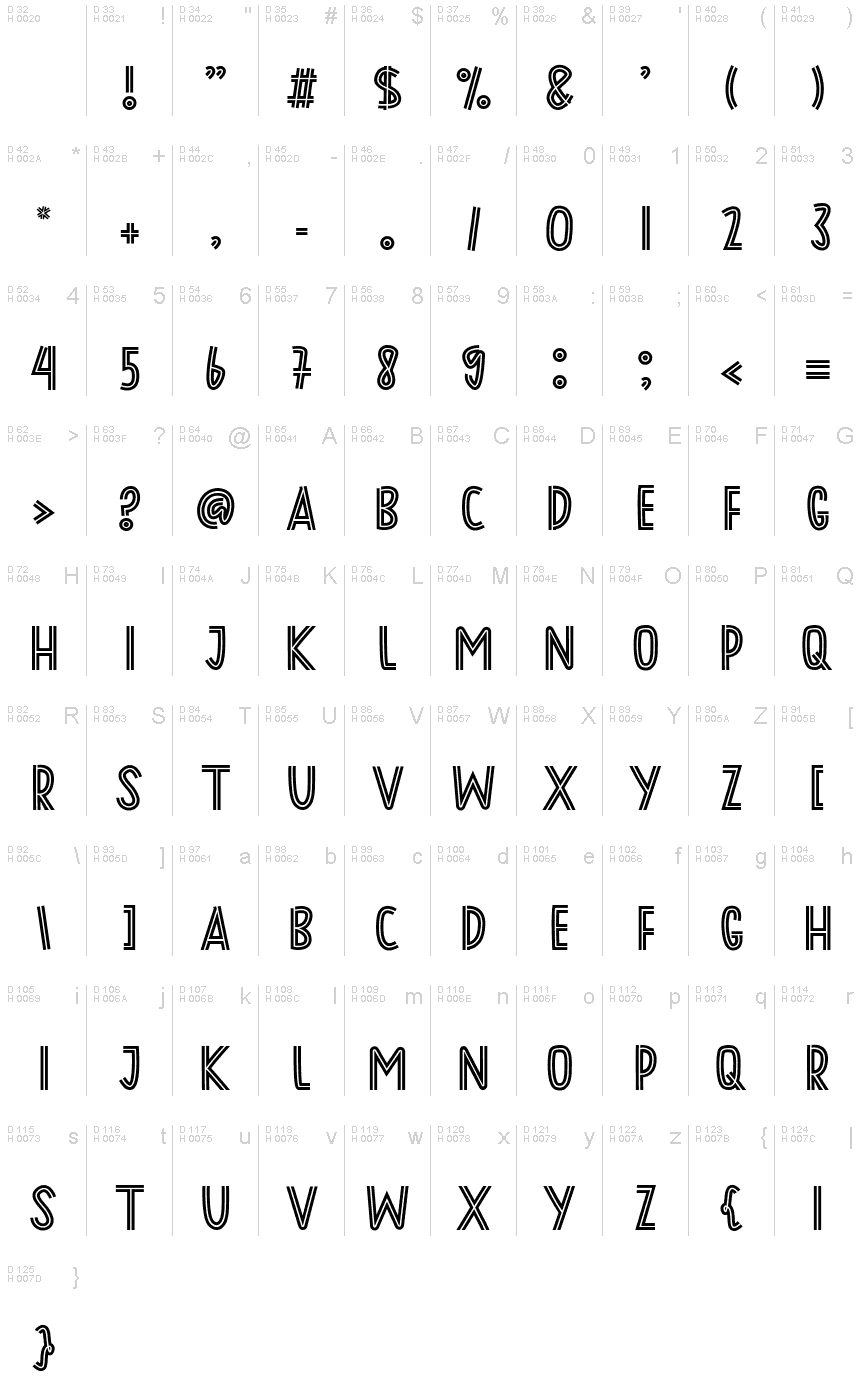
DUOLINE
DUOLINE, the brainchild of Share Font, is a display font that's sure to make a statement. Its semi-light weight and semi-condensed width provide a unique and eye-catching aesthetic that's perfect for headlines, titles, and logos. With its distinct retro vibe and attention-grabbing style, DUOLINE is suitable for an array of projects including vintage-inspired branding campaigns, art deco inspired posters or even contemporary web designs looking to add some edge. Whether you're creating graphics for print or digital media, this font is the perfect choice to elevate your work and leave a lasting impression on your audience.